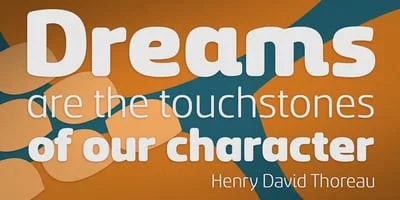
Sancoale Softened Font
The Sancoale Softened Font excels in various design applications including gentle wellness center branding, soft spa communications, comfortable baby boutique signage, tender childcare facility materials, soft cotton product packaging, gentle therapy practice identities, soothing meditation center promotions, comfortable bedding company marketing, gentle skincare brand communications, and nurturing wellness projects that demand softened elegance and gentle sophistication.
What makes the Sancoale Softened Font exciting is its tender embodiment of gentle comfort and softened elegance through letterforms that capture the essence of soothing textures and the nurturing quality of caring touch. This typeface demonstrates exceptional gentleness through carefully rounded characters that suggest the soft comfort of premium fabrics, the gentle care of nurturing environments, and the soothing quality that makes softened experiences so emotionally comforting and physically relaxing. The font's softened personality makes it perfect for wellness brands and childcare organizations seeking to communicate gentle authenticity, nurturing care, and the kind of soft comfort that creates memorable wellness experiences through typography that literally embraces with softened warmth.
The Sancoale Softened Font family typically includes gentle weight variations that enhance the softened aesthetic, featuring rounded styling options and extended character sets optimized for wellness communications and comfort applications. These family options often include comfort-inspired alternates, gentle symbols, and softened decorative elements that provide designers with comprehensive tools for creating authentically gentle typography that celebrates comfort culture while maintaining contemporary design appeal and wellness credibility.
Wellness professionals and comfort brands consistently select Sancoale Softened Font for projects requiring typography that communicates gentle authenticity and softened sophistication. This typeface delivers exceptional performance in wellness marketing, comfort branding, and gentle communications where establishing care and creating soothing atmosphere is essential for comfort-seeking engagement. The font's softened character makes it particularly effective for spa and childcare applications. Download Sancoale Softened Font today to access this gently sophisticated typeface that transforms wellness communications with its softened elegance and comfort sophistication, creating compelling nurturing experiences that honor the magnificent power of gentle care while celebrating the soothing comfort that defines authentic wellness culture and softened excellence.